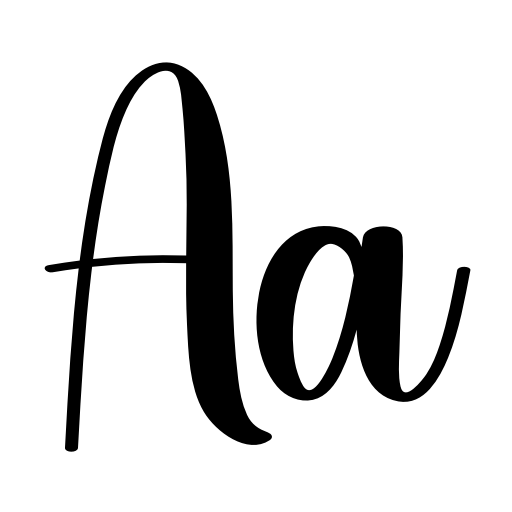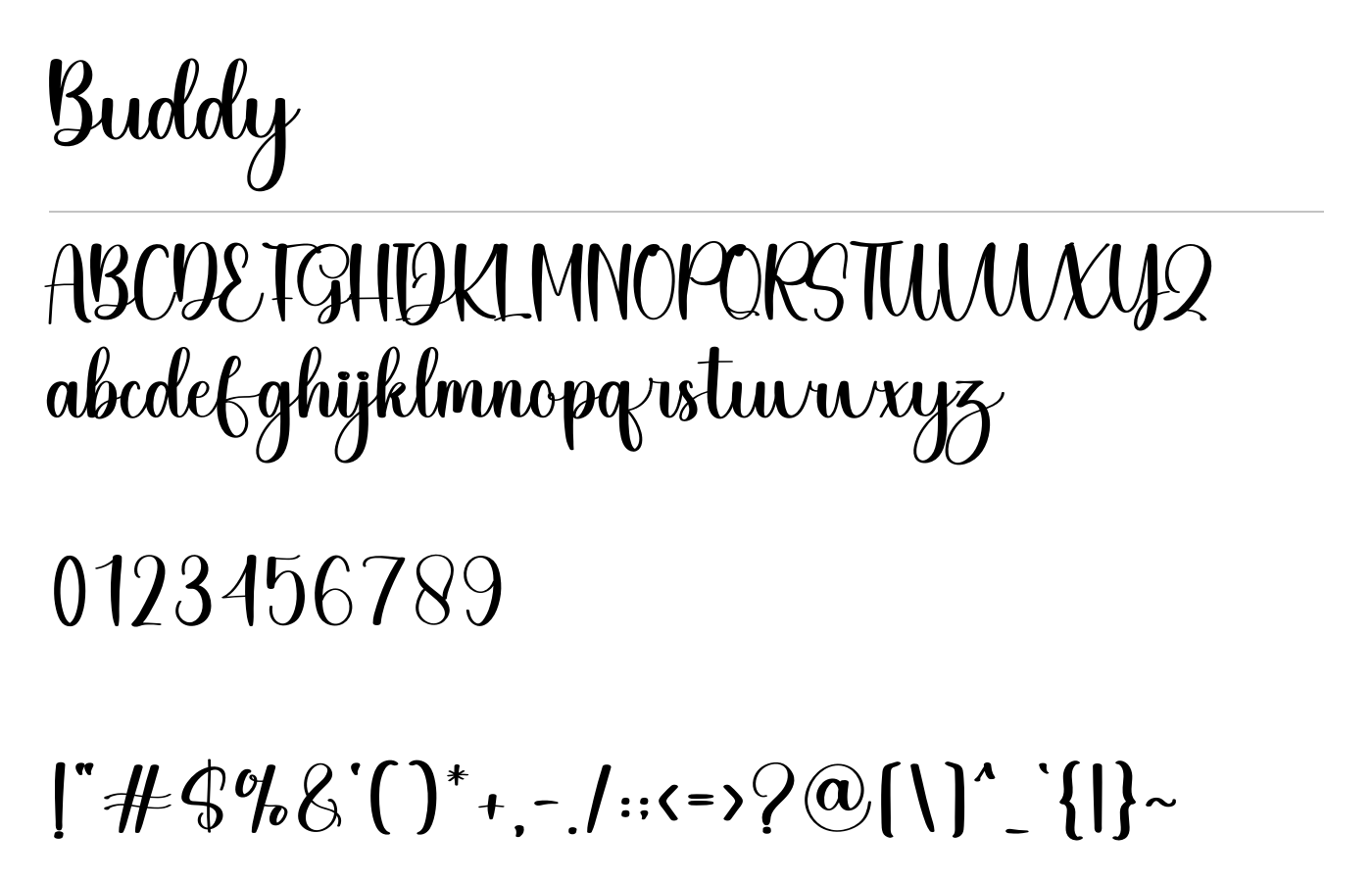
Buddy Font is a lively and charming script typeface characterized by its elegant, flowing letterforms with a friendly, handwritten feel. Its balanced strokes and playful curves make it perfect for creative branding, invitations, and casual headlines where personality and warmth are key. This font works well in designs that seek a modern yet approachable style, adding a touch of whimsy without sacrificing readability.
Buddy Font
About Buddy Font